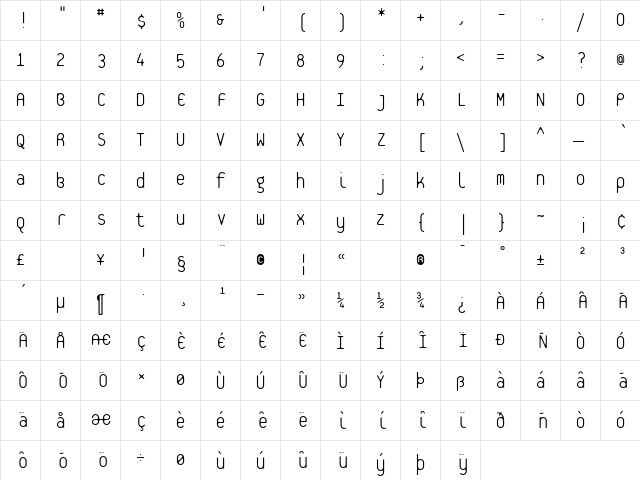
Boks-Thin Thin
Design Context for Boks-Thin Typeface
Boks-Thin is a composed and adaptable typeface that performs quietly and consistently across a wide range of design contexts. Its slender proportions lend an understated elegance to any composition.
Pro Tip: Pair Boks-Thin with a font of contrasting weight or personality to build a more expressive typographic hierarchy.